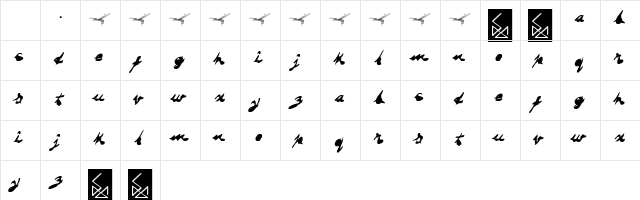
Complete DRAGONFLY glyph index. Displaying only characters natively supported by DRAGONFLY font.
DRAGONFLY is a composed and adaptable typeface that performs quietly and consistently across a wide range of design contexts.